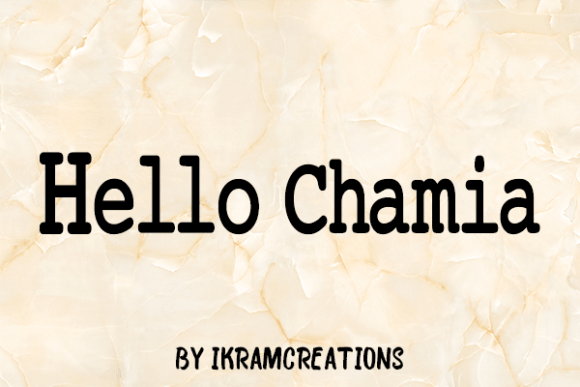
Hello Chamia Font
Hello Chamia: A Unique and Eye-Catching Font
Hello Chamia is the best choice for creating eye-catching logos, branding, and quotes. Every letter has a unique and beautiful touch, which will make your design come alive!
Key Features of Hello Chamia
• Unique Design: Offers a distinctive look with each letter having its own beautiful touch.
• Eye-Catching: Perfect for creating designs that stand out and grab attention.
• Versatile Application: Ideal for logos, branding, and quotes.
• Design Enhancement: Brings designs to life with its unique character.
Ideal Uses for Hello Chamia
Hello Chamia’s unique characteristics make it particularly well-suited for:
When incorporating Hello Chamia into your designs, consider these tips:
• Use for headlines or short phrases to showcase its unique letter designs.
• Consider pairing with simpler fonts for body text to create contrast.
• Utilize its eye-catching nature to create focal points in your designs.
Hello Chamia is an excellent choice for designers looking to add a unique and eye-catching font to their typographic toolkit. Its ability to bring designs to life with its distinctive character makes it stand out in the world of typography. Whether you’re working on logo designs, creating branding materials, or developing content for quotes and social media, Hello Chamia offers the perfect blend of uniqueness and visual appeal.
Furthermore, Hello Chamia’s unique design allows it to shine in various contexts where grabbing attention is key. From packaging designs to website headers, this font can elevate your projects with its distinctive style. Its beautiful yet readable appearance works particularly well in designs that aim to make a strong visual impact and leave a lasting impression.
In conclusion, Hello Chamia is a font that truly captures the essence of uniqueness and eye-catching design in modern typography. Its versatility across different applications showcases its adaptability to various creative needs. For those looking to add a touch of distinctive charm to their work, Hello Chamia can enhance themed creations with its unique style. It’s the perfect choice for designers seeking to make a bold, memorable impact across a wide range of creative projects.